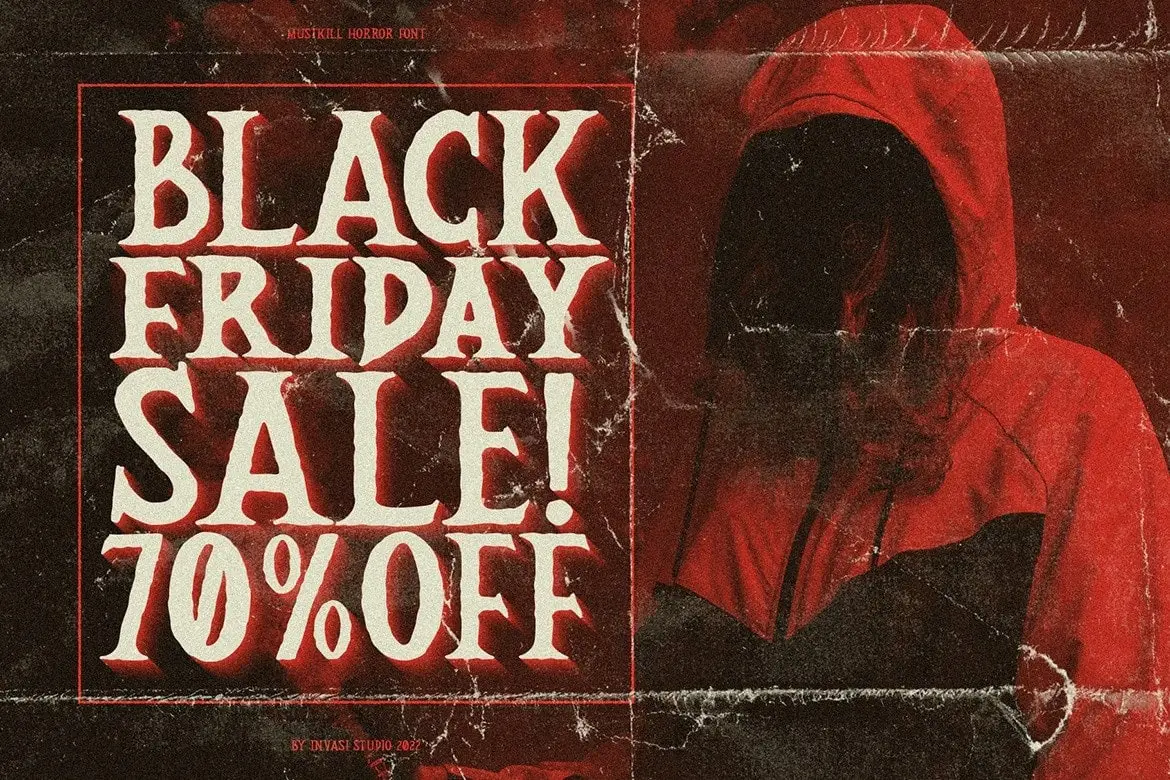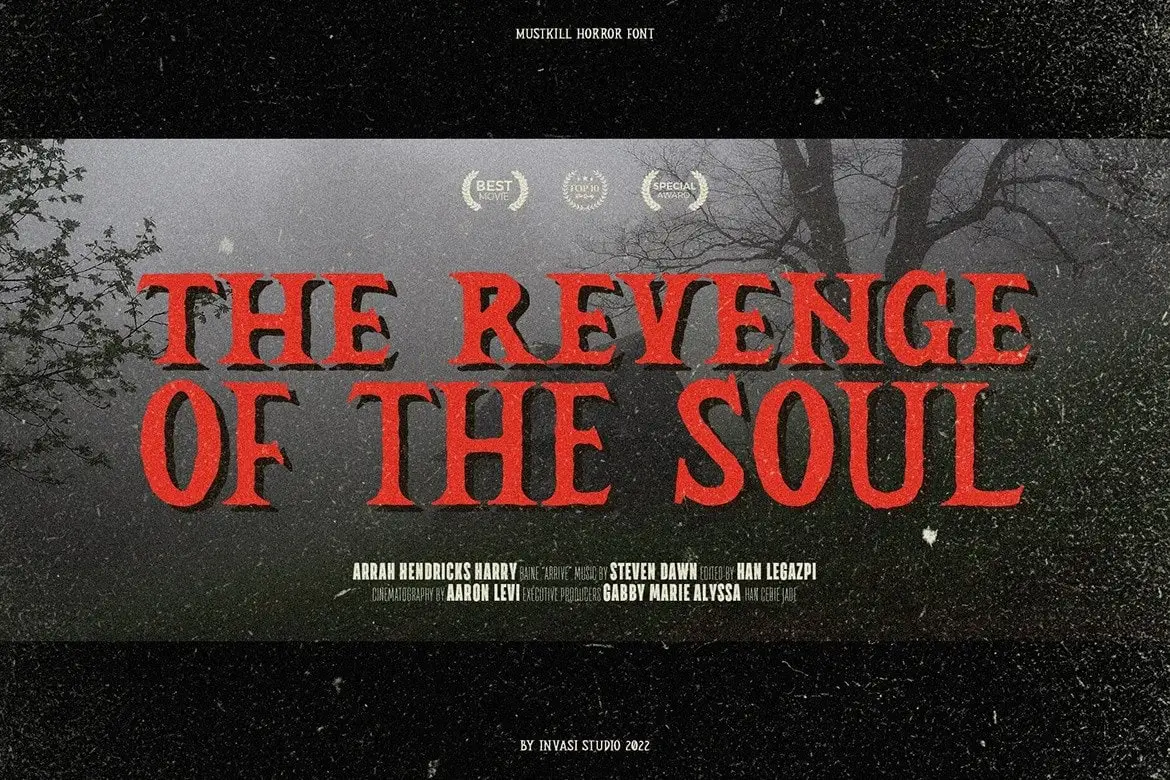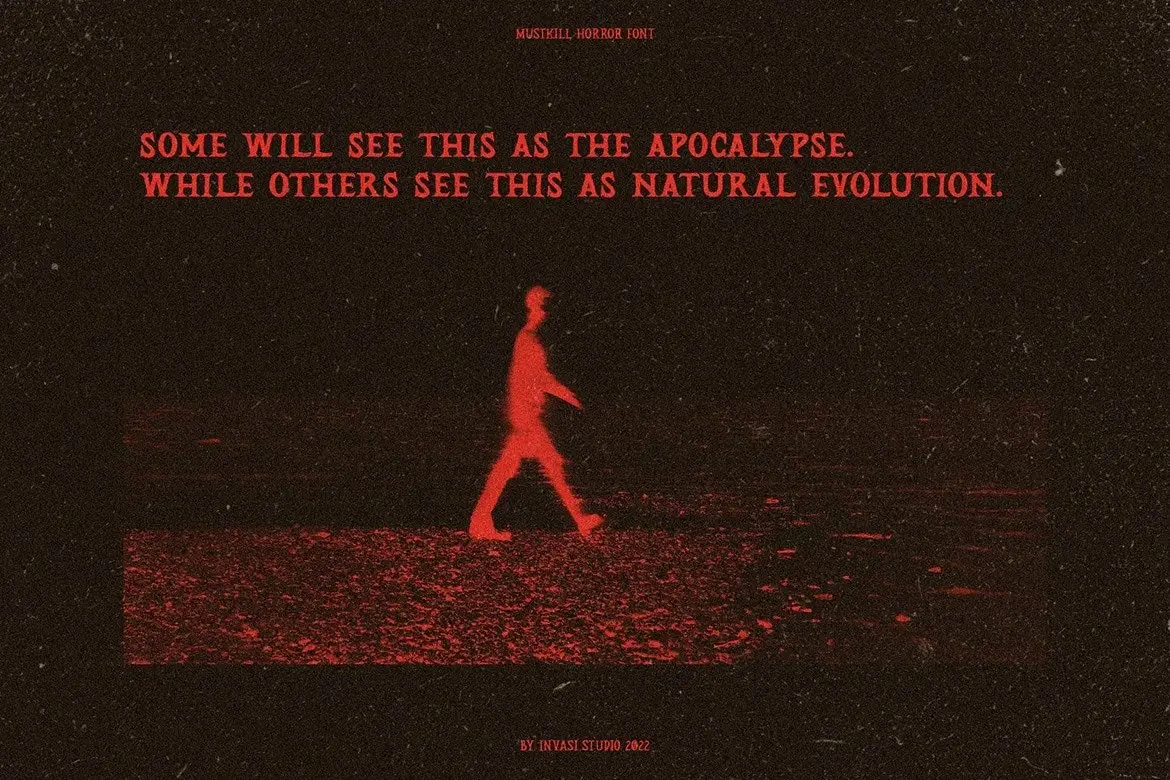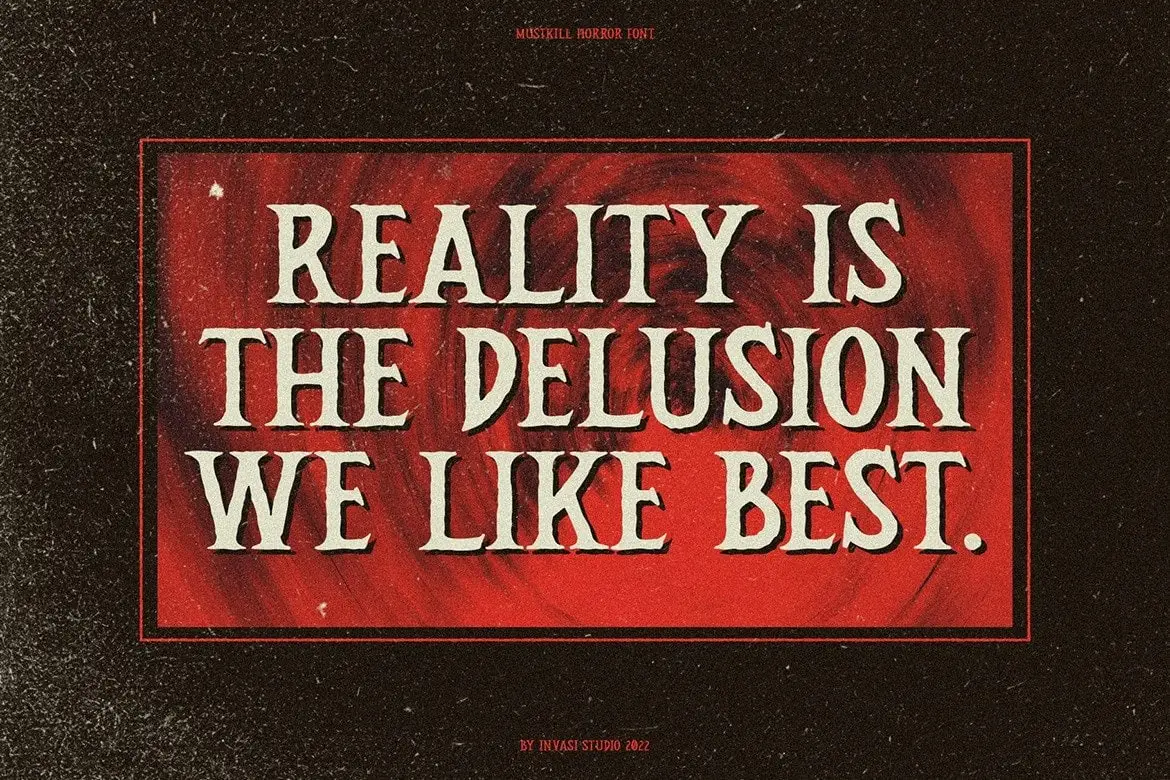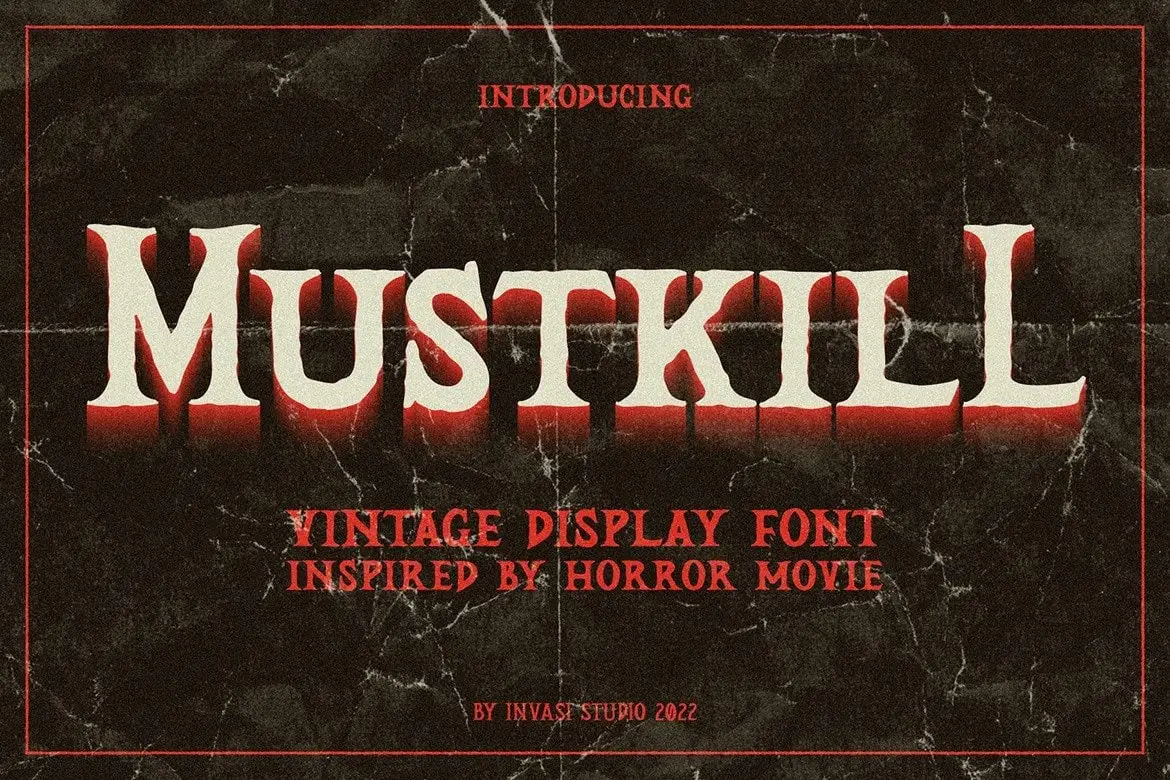
Mustkill Font By Invasi Studio
The Mustkill Font by Invasi Studio is a striking typeface designed to make a bold statement. With its unique character shapes and varied weights, this font is perfect for a wide range of applications including branding, logos, web design, and print materials.
• Stylish and modern design
• Ideal for eye-catching headlines and titles
• Great for creating unique logos and brand identities
• Perfect for both digital and print projects